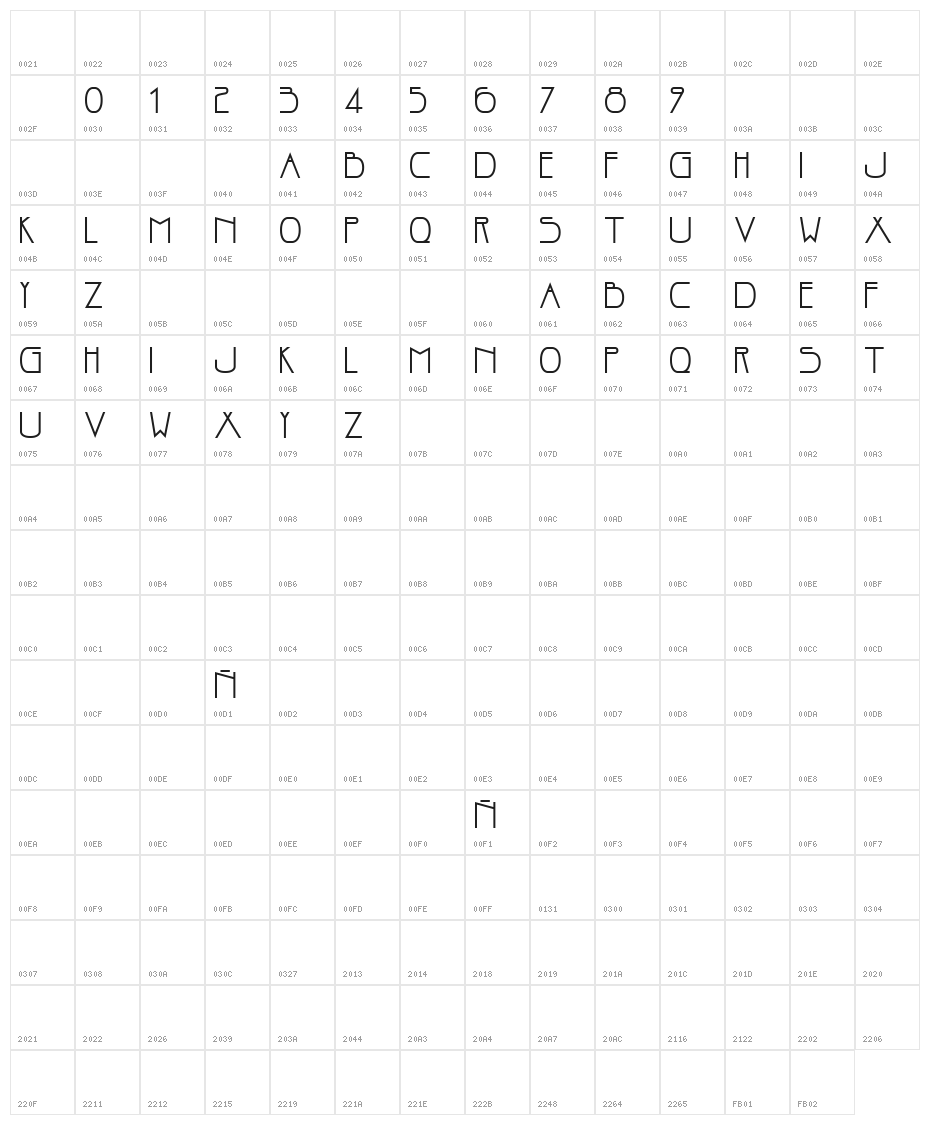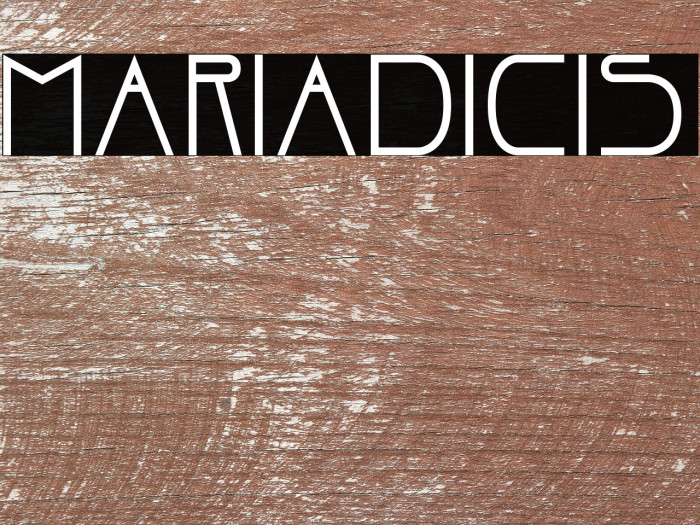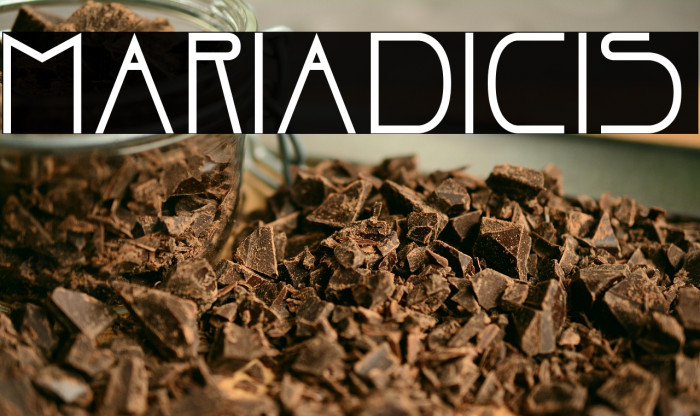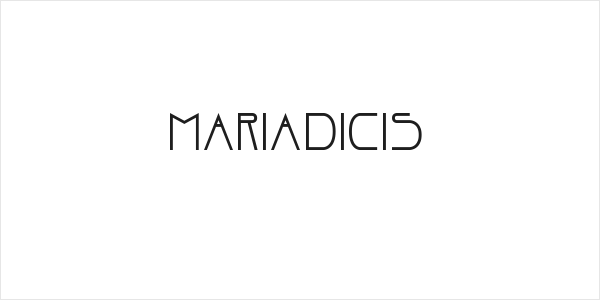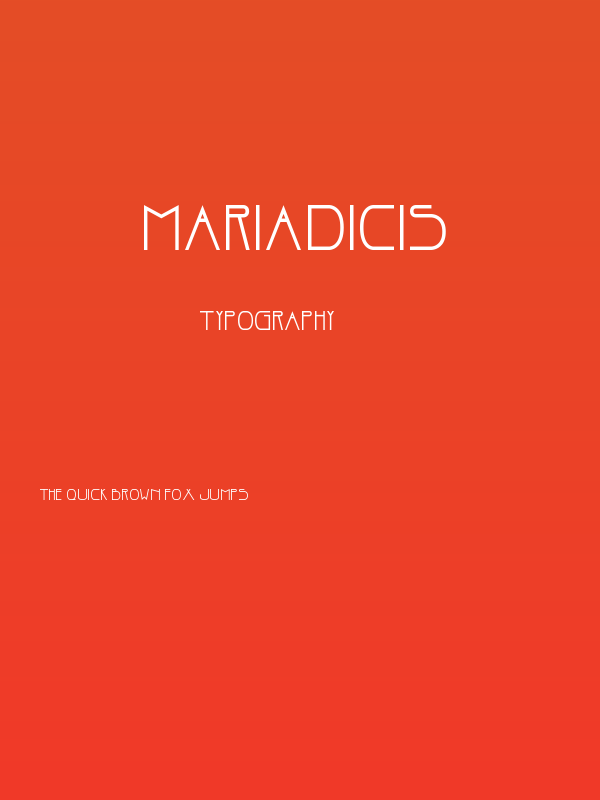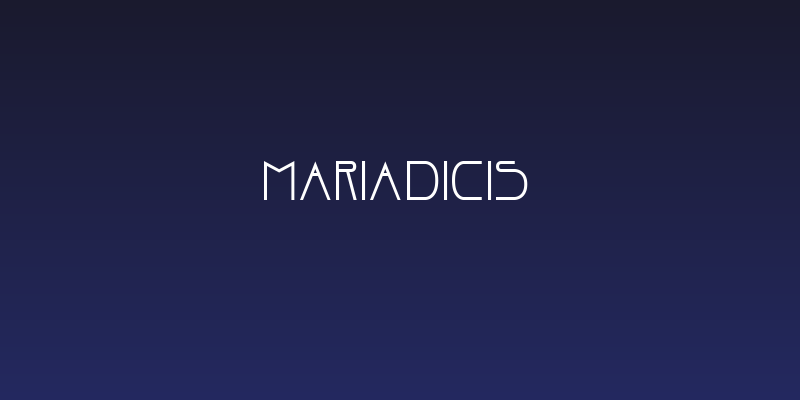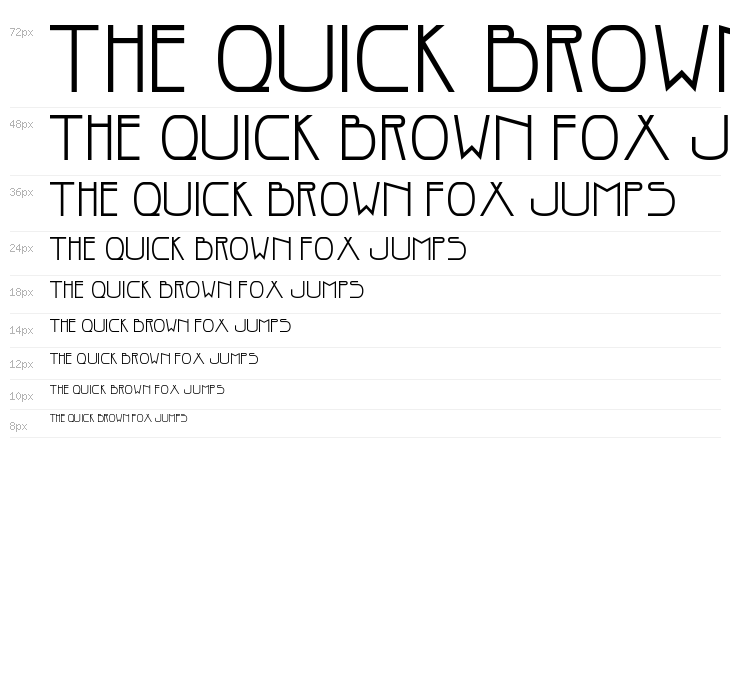
Mariadicis Font
✎ Futuristic
This font features a modern and geometric design with clean, straight lines and sharp angles. The characters are constructed with a consistent stroke width, giving it a uniform appearance. The uppercase letters exhibit a futuristic style, with some characters incorporating unique cuts and angles, such as the 'A', 'R', and 'K'. The numerals follow the same geometric theme, maintaining clarity and readability. The overall look is sleek and minimalistic, making it suitable for contemporary design projects.
| Proposed Projects | Ideal for technology branding, modern posters, and futuristic design themes. |